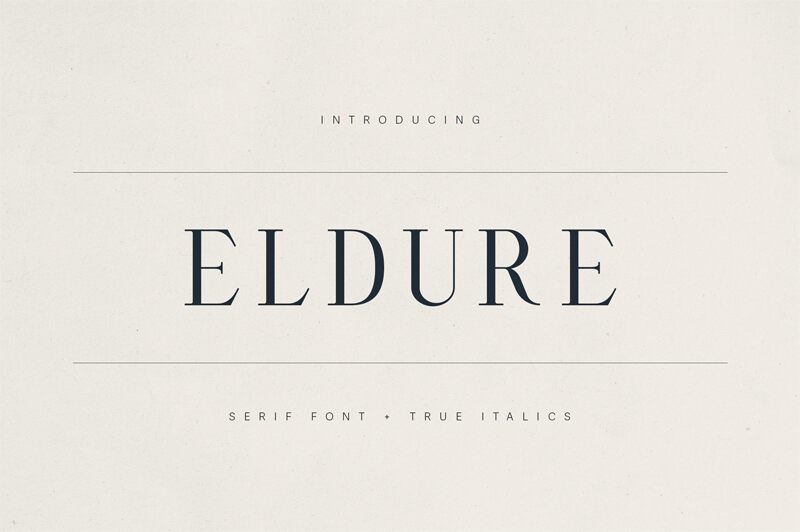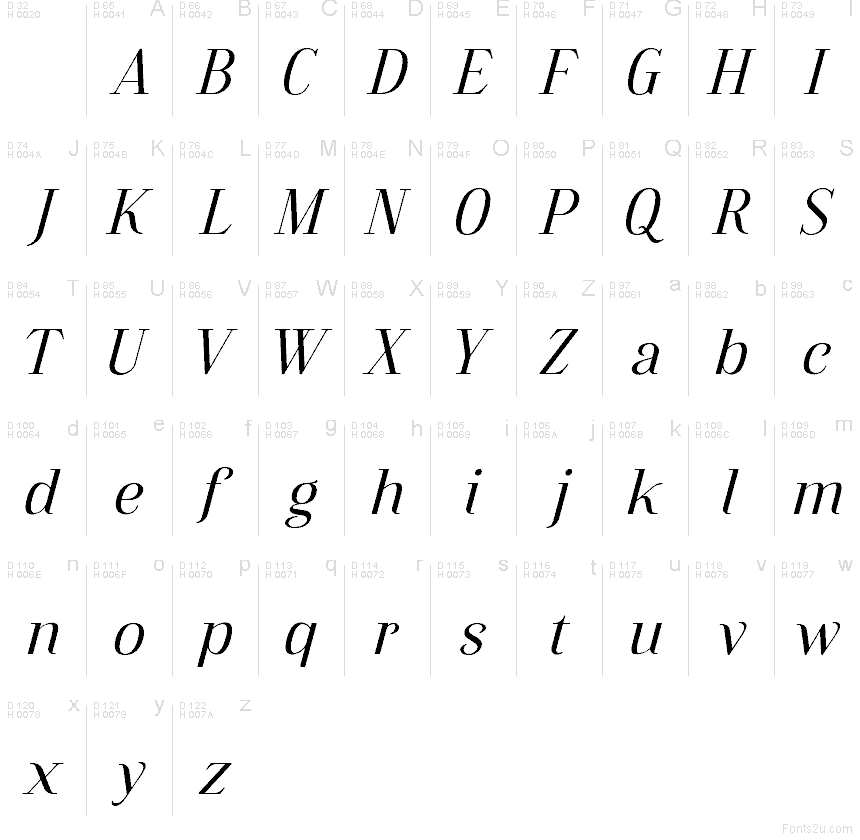
Eldure Demo Italic
Eldure Italic font by VPcreativeshop is a free serif typeface that pours classic editorial elegance into a sharply slanted form. Its long, sweeping strokes and needle-fine serifs feel like they were drawn with a steel-nib pen, giving every word a sense of motion and quiet drama. The Eldure family’s italic cut feels luxurious yet controlled, with tight, confident spacing that keeps it sleek rather than fussy.
Using Eldure Italic, text seems to glide across the page, which works beautifully for fashion branding, magazine covers, perfume packaging, book titles, logotypes, and refined social media graphics. This free font shines when set larger, where its delicate details can really breathe. Pair it with a clean sans like a geometric grotesk for body copy to let Eldure Italic handle all the glamorous headlines and hero moments.